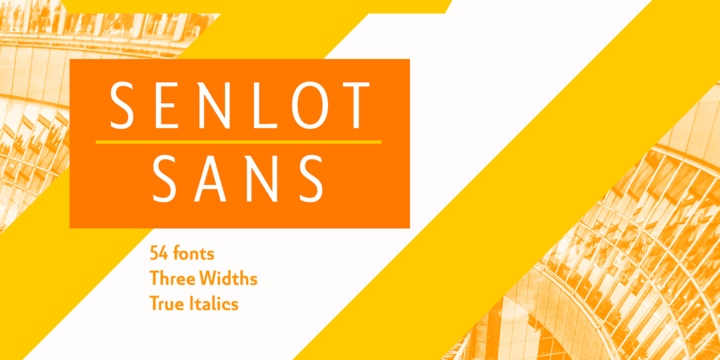
Senlot Sans Font
Senlot Sans Font is perfect for modern corporate branding, tech startup identity, clean web design, professional presentations, minimalist packaging, contemporary signage, mobile app interfaces, business communications, progressive editorial layouts, and sophisticated digital platforms.
Senlot Sans Font is exciting because it represents the perfect evolution of contemporary sans-serif design, combining geometric clarity with subtle humanist warmth to create a typeface that excels in today's multi-platform digital environment. This font brings professional sophistication and modern functionality to any project, making it ideal for businesses and organizations that value clear communication, innovation, and design excellence. Its balanced proportions and optimized readability ensure exceptional performance across all contemporary media channels.
Senlot Sans Font family includes thin, light, regular, medium, bold, and black weights, each available in roman and italic styles with extended character support, providing designers with comprehensive flexibility for creating cohesive brand systems and versatile typography solutions.
This exceptional contemporary typeface merges modernist design principles with practical digital optimization, making Senlot Sans Font Free Download an outstanding choice for today's demanding design applications. The font's precisely crafted letterforms feature subtle optical refinements and balanced spacing that ensure excellent legibility across all screen sizes while maintaining distinctive character and professional appeal.
Whether you're developing startup branding, designing corporate communications, or creating sophisticated user interfaces, Senlot Sans Font delivers remarkable versatility and contemporary elegance. The font maintains consistent performance across print and digital applications, making it ideal for comprehensive brand systems that require reliability and visual coherence.
Design professionals choose Senlot Sans Font for its ability to project intelligence and innovation while providing the functionality needed for complex information hierarchies and cross-platform consistency. The font's modern character makes it particularly suitable for technology companies, consulting firms, and forward-thinking organizations.
Each character demonstrates masterful attention to proportion and spacing optimization, featuring the clean geometry and subtle refinement that defines contemporary professional typography and modern business communication excellence.